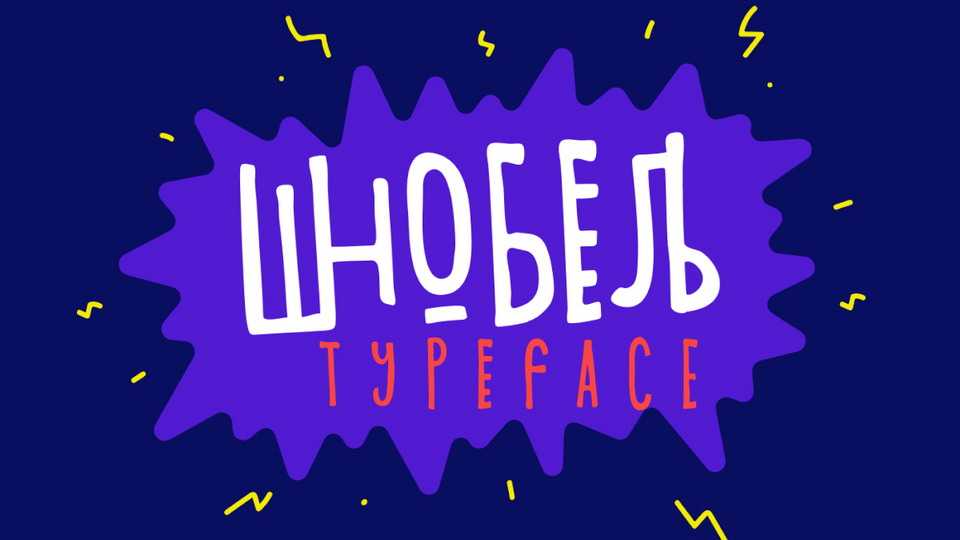
Download Shnobel font, a very emotional, mind-blowing, odd, wild, funny and extraordinary typeface! Shnobel is suitable for different design purposes! This is the font you need to work with! But you need to be very careful… it’s really kicks ass! 🙂
Designer: Vova Egoshin